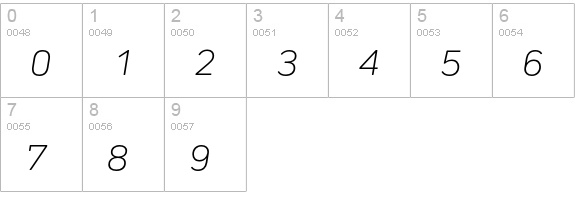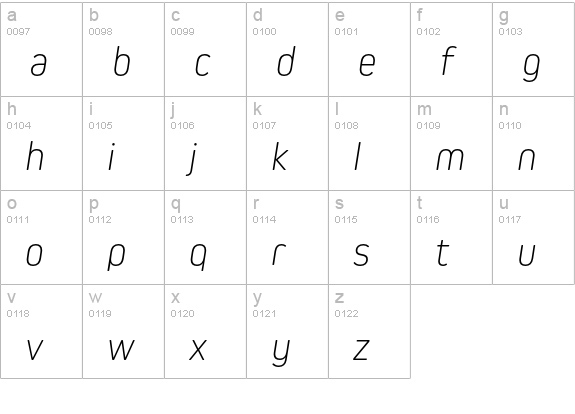
Kiro Extra Light Italic is a sleek and elegant font that exudes sophistication and modernity. Its delicate curves and subtle slant create a sense of movement and style, making it perfect for adding a touch of finesse to any design project. The extra light weight of the font gives it a delicate and airy quality, ideal for conveying a sense of lightness and grace. What makes Kiro Extra Light Italic even more appealing is that it is available for free download at FontsMarket.com. This means that you can easily access this beautiful font and use it in your projects without any cost. Whether you are designing a website, creating a logo, or working on a print project, Kiro Extra Light Italic will elevate your design with its refined and sophisticated aesthetic. Download now and add a touch of elegance to your creations with this stunning font.